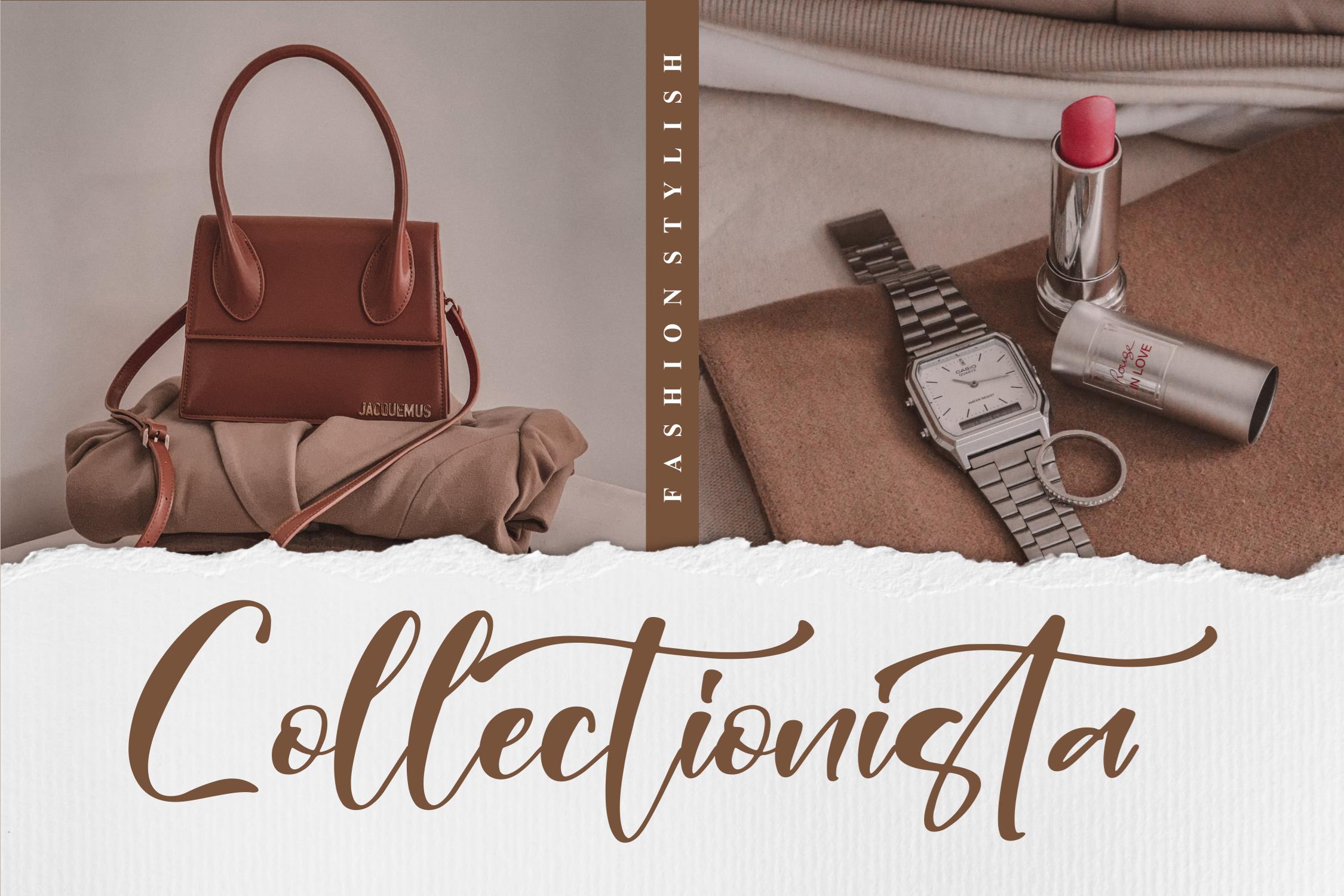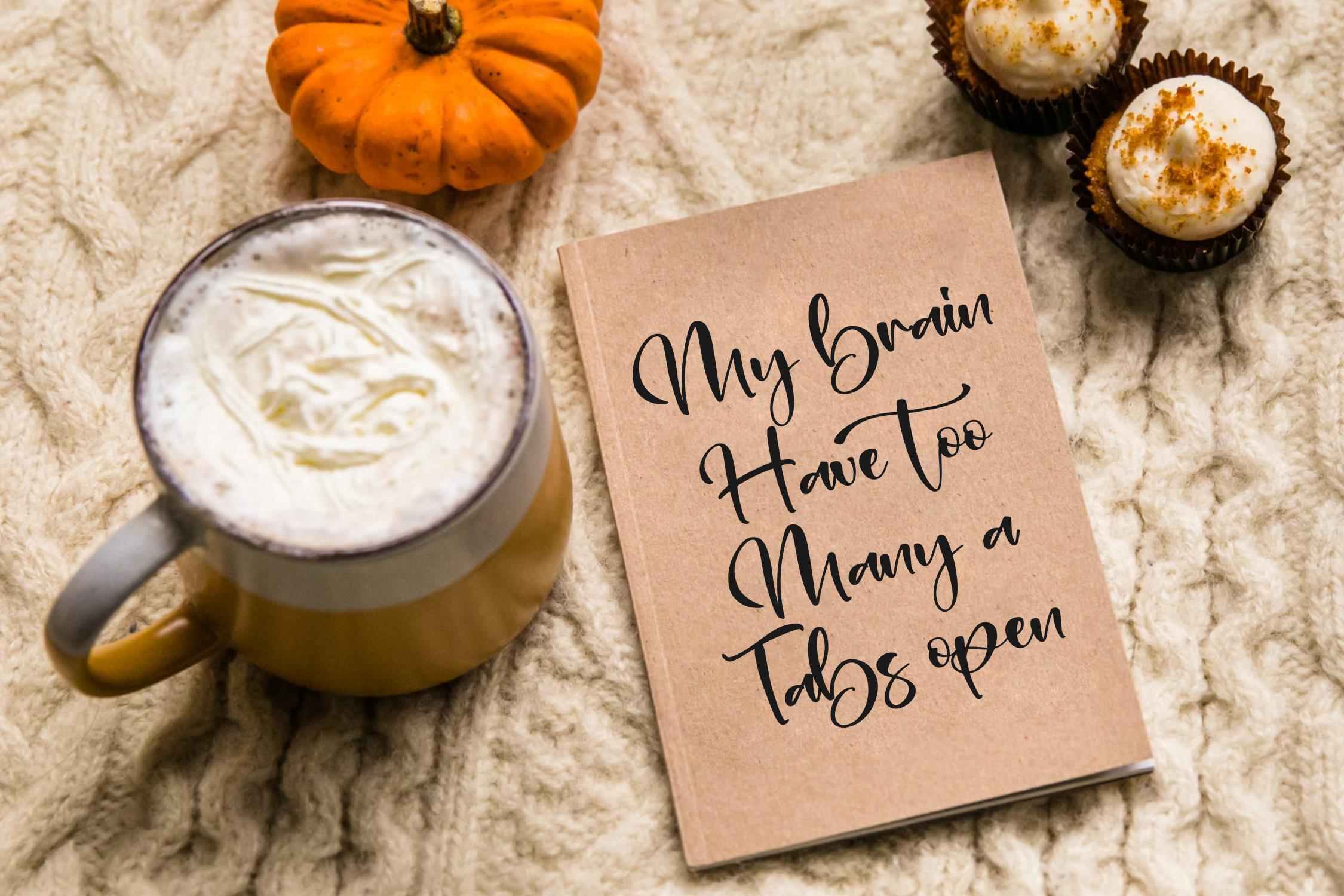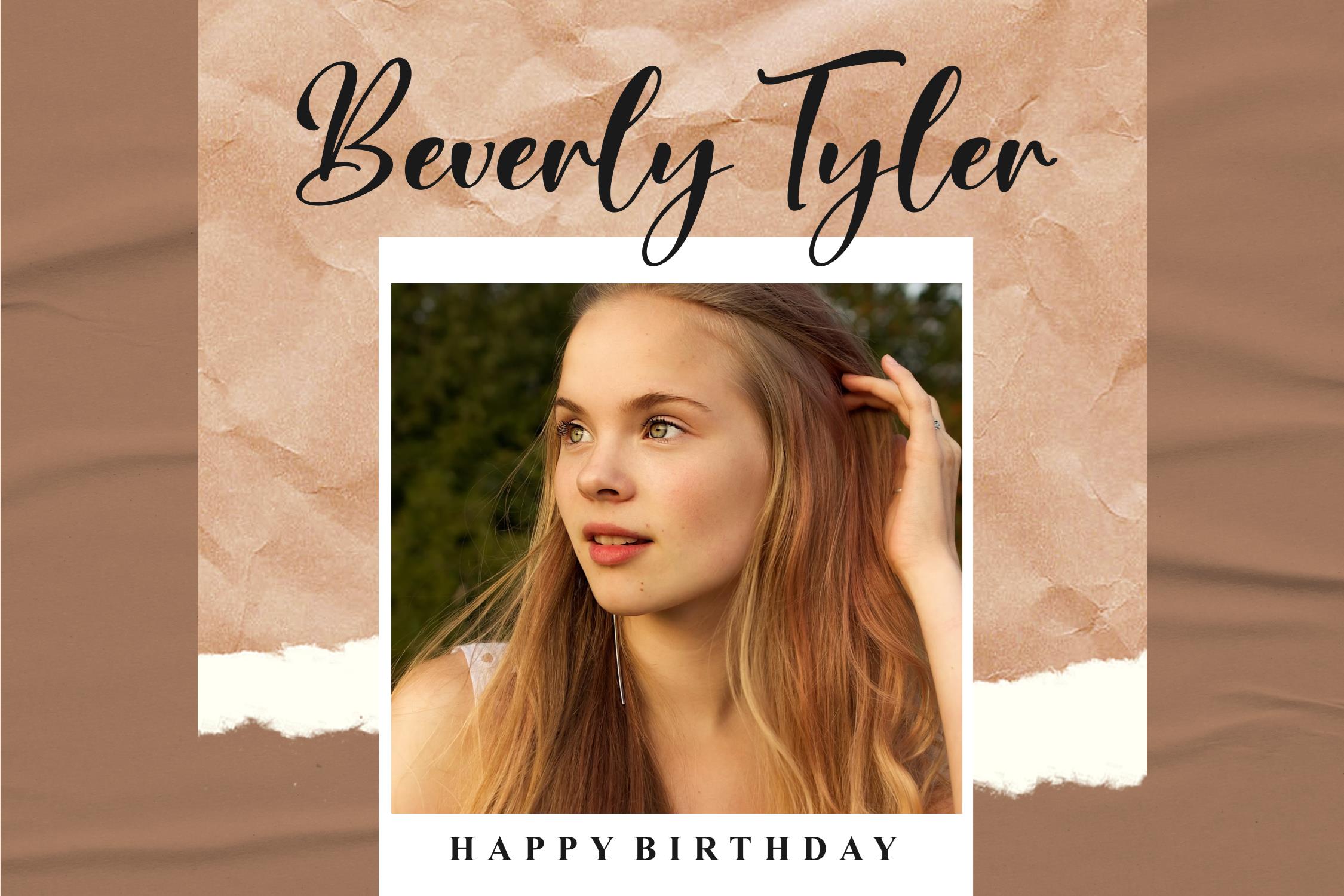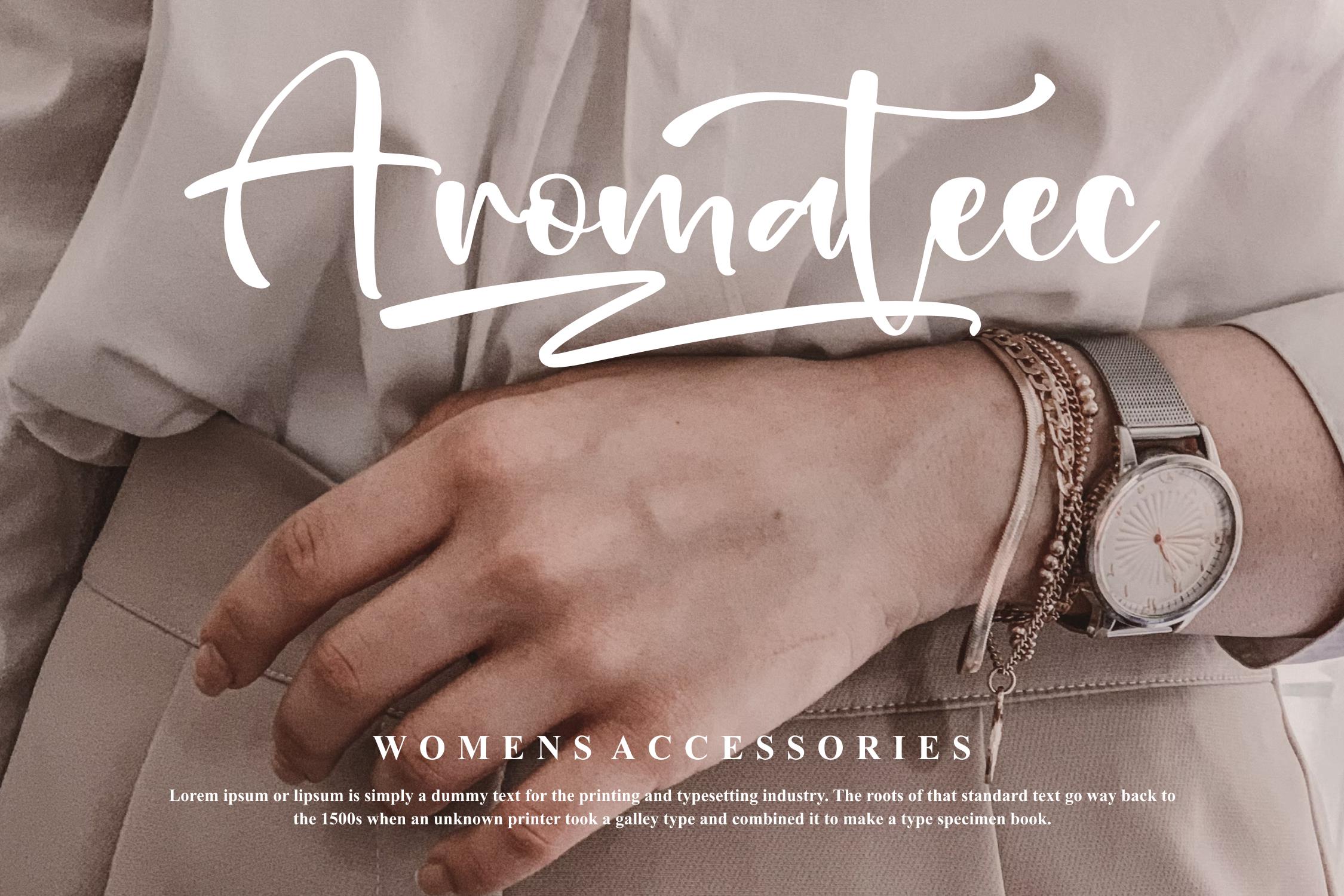
Rainbow Fantasy Font – Beauty Handwritten Font , from Letterfabric Studio, is a suitable for any projects such as: logos, branding projects, homeware designs, product packaging, mugs, quotes, posters, shopping bags, t-shirts, book covers, name card, invitation cards, greeting cards, label, photography, watermark, special events, and all your other lovely projects that need a beautiful script taste.